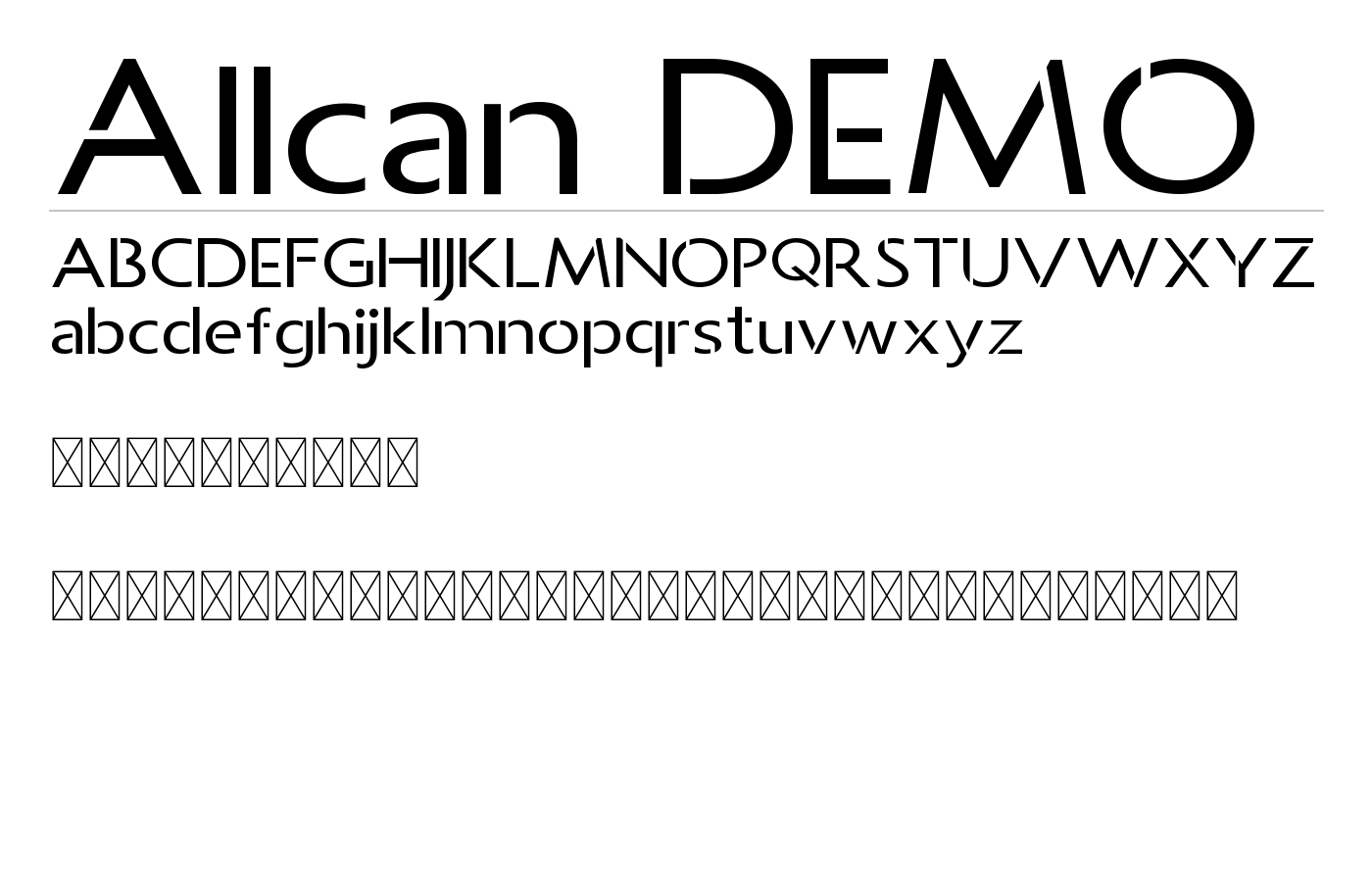
Allcan DEMO is a sleek, modern sans serif font with a unique geometric and slightly futuristic style. It features a high contrast between thick and thin strokes and distinctive letterforms that give it a bold and elegant appearance, making it ideal for eye-catching headlines, logos, and branding projects that want to convey innovation and sophistication. Its clean lines and sharp angles lend a contemporary feel, perfect for fashion, tech, and editorial designs seeking a stylish and cutting-edge look.
Allcan DEMO Font